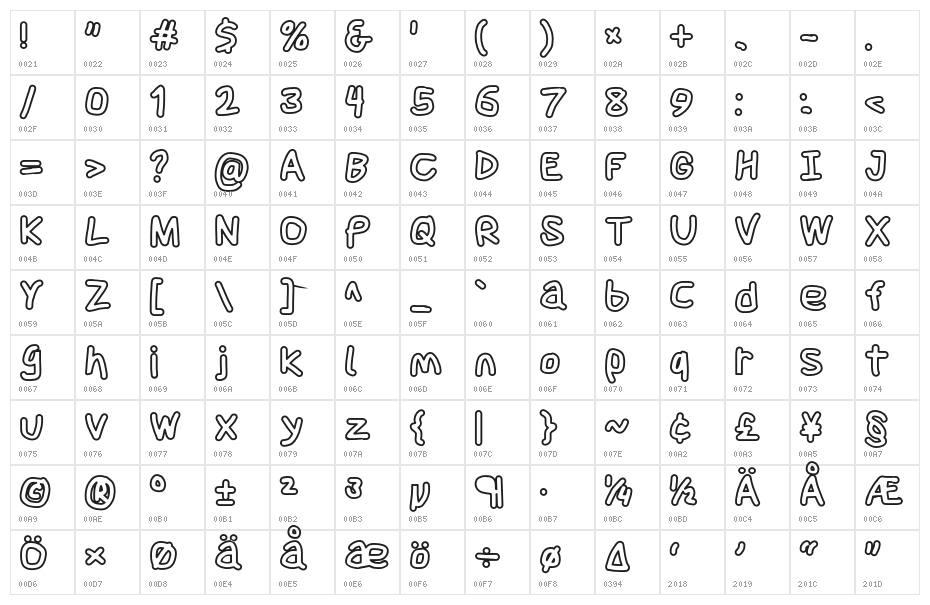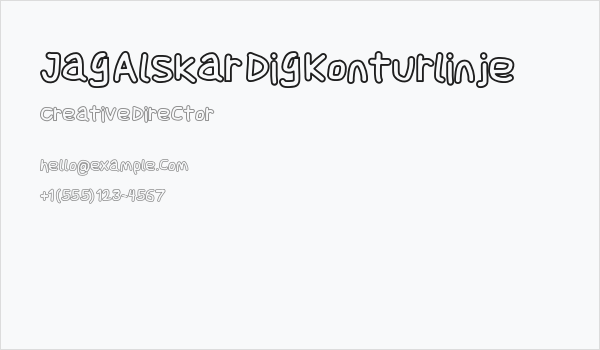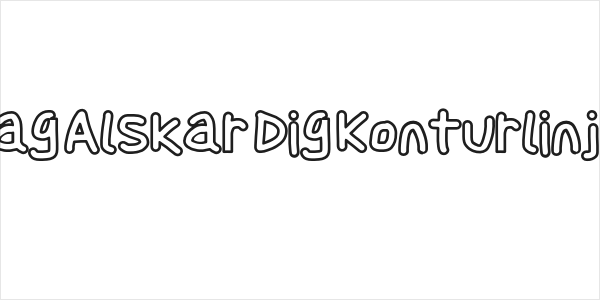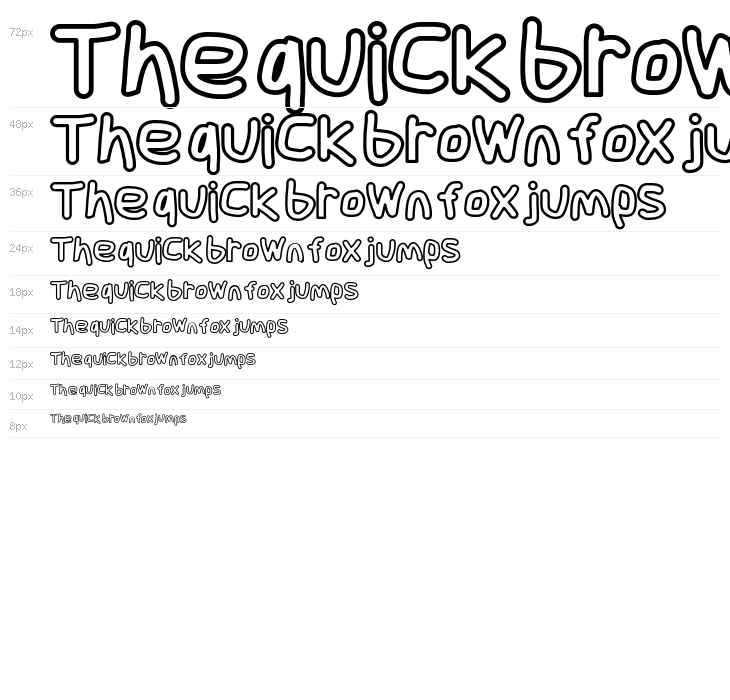
Jag Alskar Dig Konturlinje Font
Jag Alskar Dig Konturlinje Description
This playful and bold font features a unique outline style that gives it a fun and approachable appearance. The characters are rounded and slightly irregular, adding a whimsical touch. The uppercase and lowercase letters maintain a consistent style, with a hand-drawn feel that is both casual and inviting. The numbers and special characters follow the same design, ensuring a cohesive look across all text elements. This font is perfect for projects that require a friendly and informal tone, such as children's books, playful branding, or creative posters.
| Overall Style | Playful, Whimsical, Casual |
| Proposed Projects | Ideal for children's books, playful branding, creative posters, and informal invitations. |